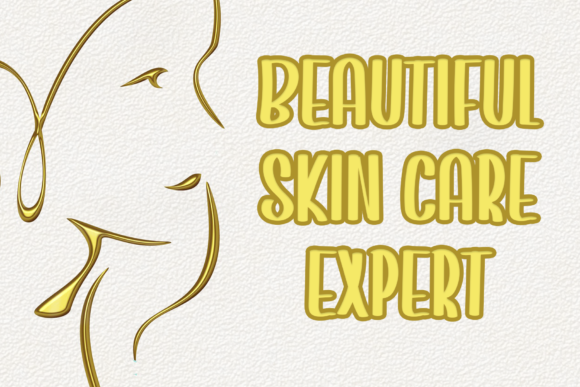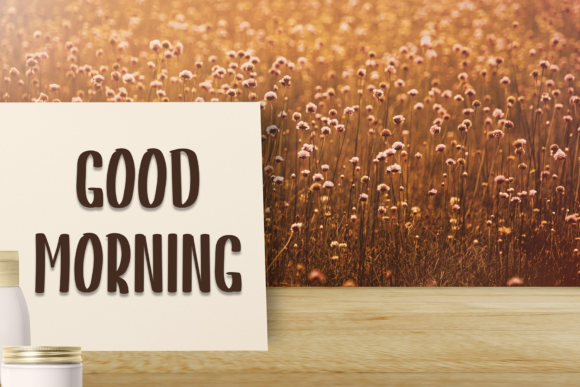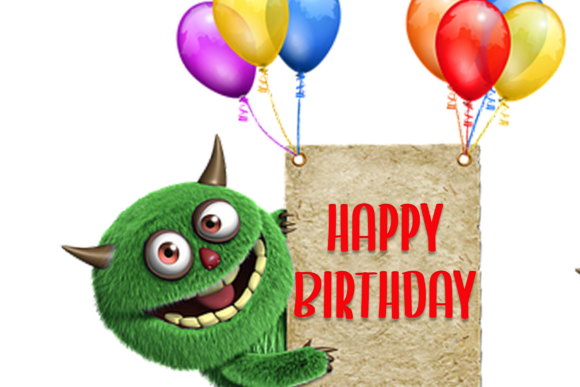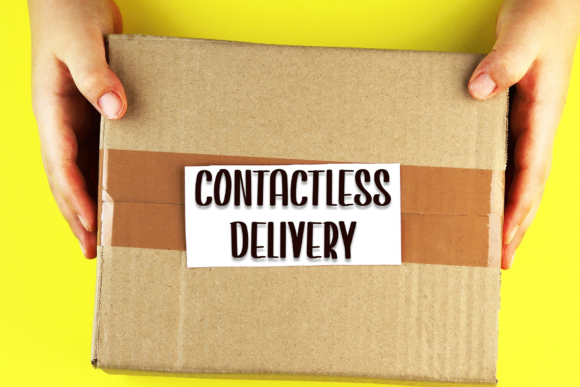
Introducing Fall Time Font: The Perfect Addition to Your Creative Arsenal
As the seasons change and the leaves start to fall, designers and crafters are on the lookout for fresh inspiration to add a touch of autumnal flair to their projects. If you’re looking to make a bold statement, look no further than the Fall Time Font. This daring and thick lettered display font is sure to take your creative ideas to the next level and make them stand out in a crowd.
The Characteristics of Fall Time Font
Fall Time Font is a stunning display font that boasts a unique blend of boldness and elegance. Its thick lettering makes it perfect for headlines, titles, and any other design element where you want to grab attention. The font’s rugged yet refined aesthetic is reminiscent of the season’s cozy warmth and rustic charm.
Key Features of Fall Time Font
- Bold and Thick Lettering: Fall Time Font features letters that are strong, sturdy, and sure to make an impact.
- Display Font: Designed specifically for display purposes, this font is ideal for use in titles, headings, and other prominent design elements.
- Elegant yet Rugged: The font’s unique aesthetic strikes the perfect balance between refinement and ruggedness, making it suitable for a wide range of design projects.
Why Designers and Crafters Love Fall Time Font
So, what makes Fall Time Font a must-have for designers and crafters? For starters, its bold and attention-grabbing design makes it perfect for projects where you want to make a statement. Whether you’re working on a seasonal design project, a branding campaign, or simply want to add some personality to your craft projects, Fall Time Font is the perfect choice.
Fall Time Font’s versatility knows no bounds. Here are just a few ideas to get you started:
- Seasonal Designs: Use Fall Time Font to create stunning autumn-themed designs, such as Thanksgiving cards, fall festival posters, or cozy sweater graphics.
- Branding and Advertising: Make a bold statement with your brand’s messaging using Fall Time Font in your advertising materials, such as billboards, flyers, or social media graphics.
- Craft Projects: Add a personal touch to your craft projects, such as handmade cards, scrapbooking, or DIY decorations, with Fall Time Font.
Tips for Using Fall Time Font Effectively
To get the most out of Fall Time Font, here are a few tips to keep in mind:
- Use it Sparingly: Due to its bold nature, Fall Time Font works best when used sparingly. Use it for headlines or titles, and pair it with a complementary font for body text.
- Experiment with Colors: Fall Time Font looks great in a range of autumnal colors, from warm oranges and yellows to rich browns and reds.
- Play with Texture: Add an extra layer of depth to your design by pairing Fall Time Font with textures that evoke the feeling of fall, such as wood grain or leaf patterns.